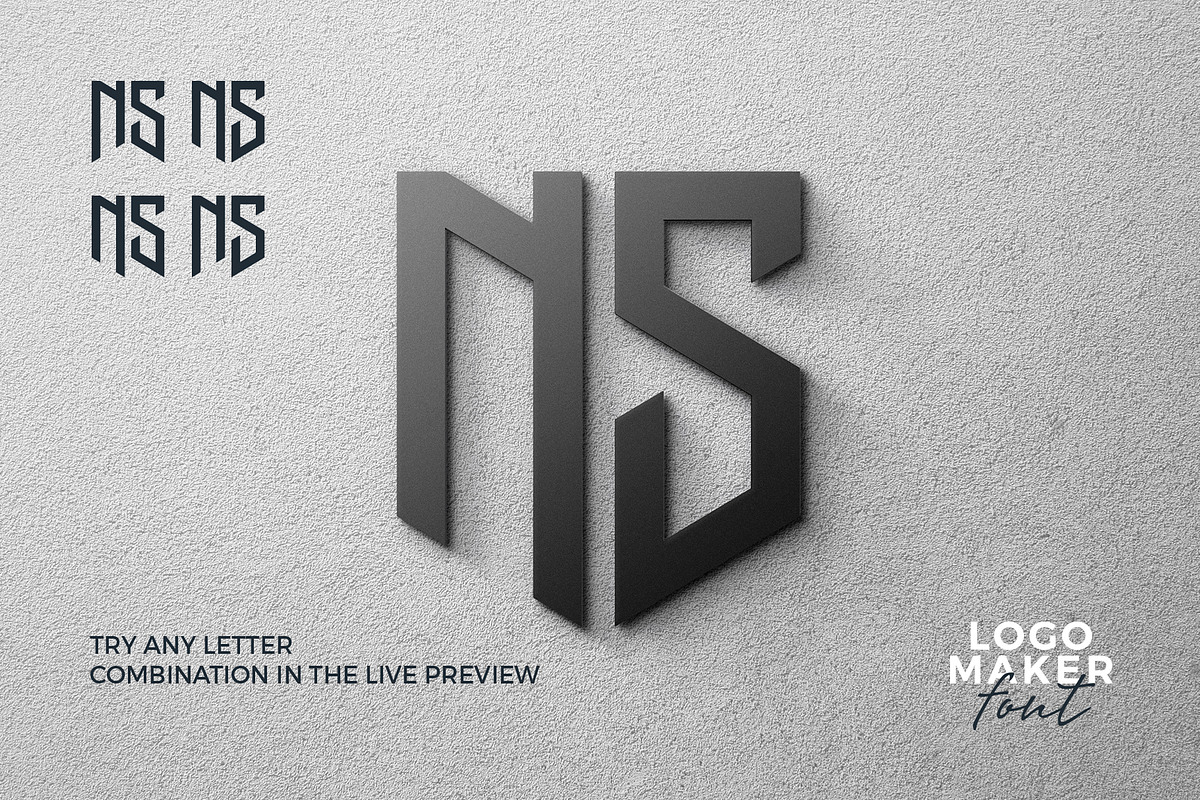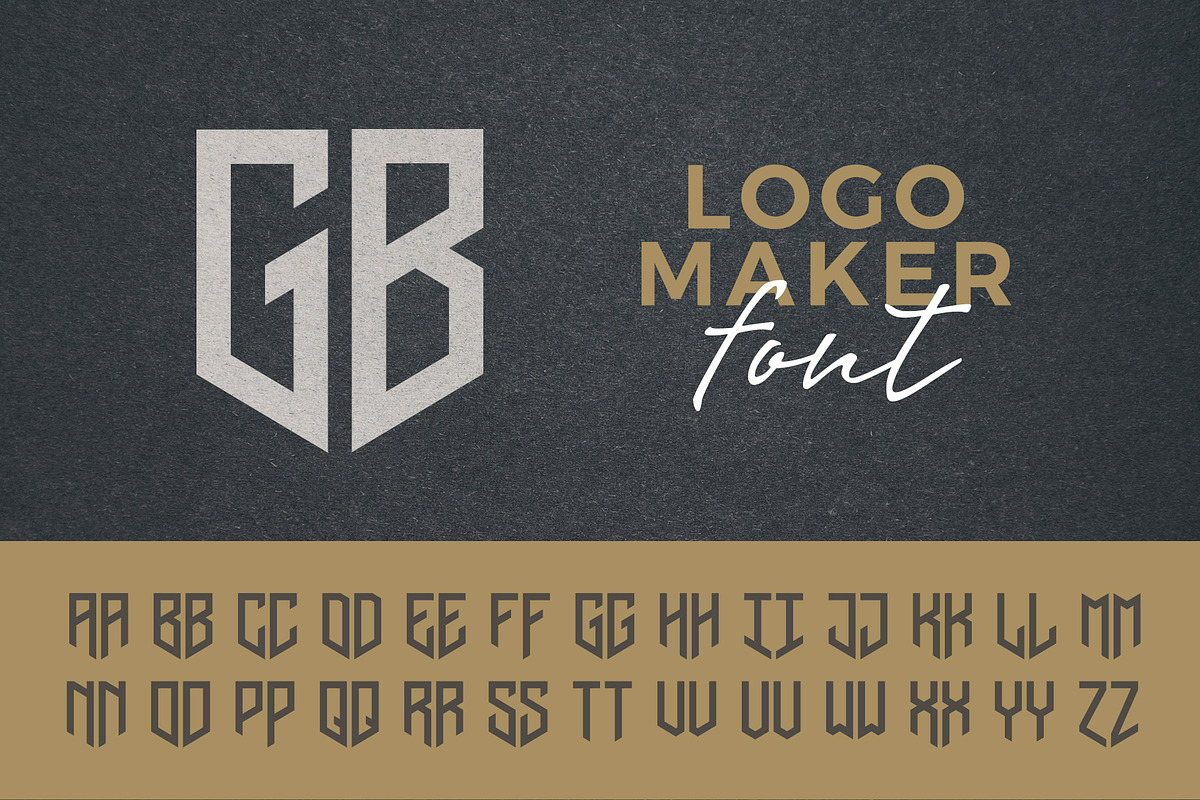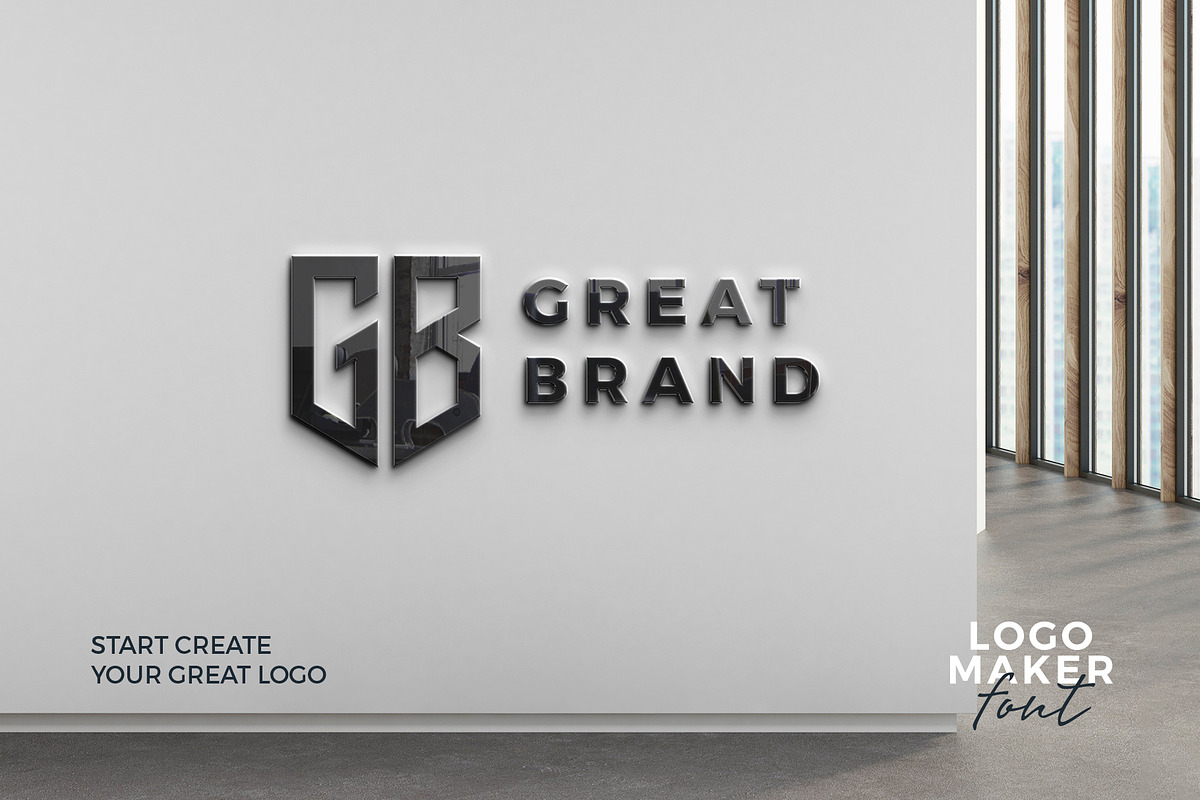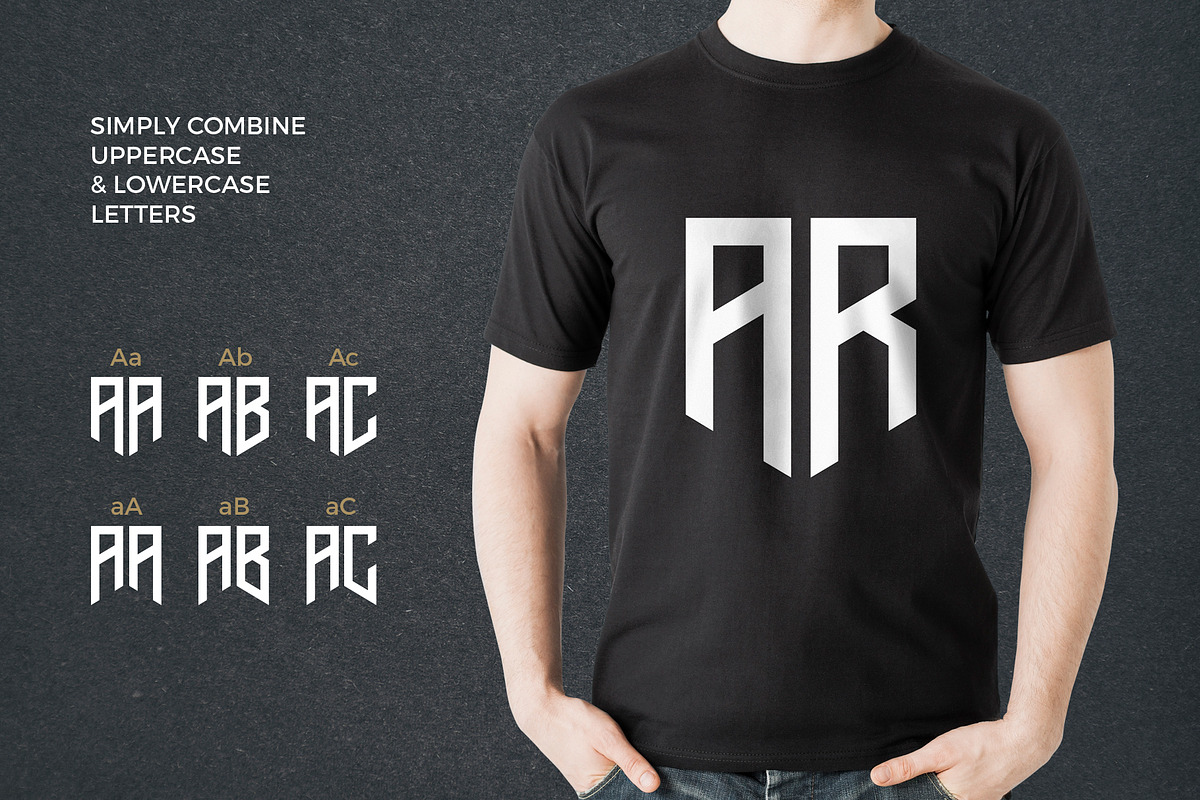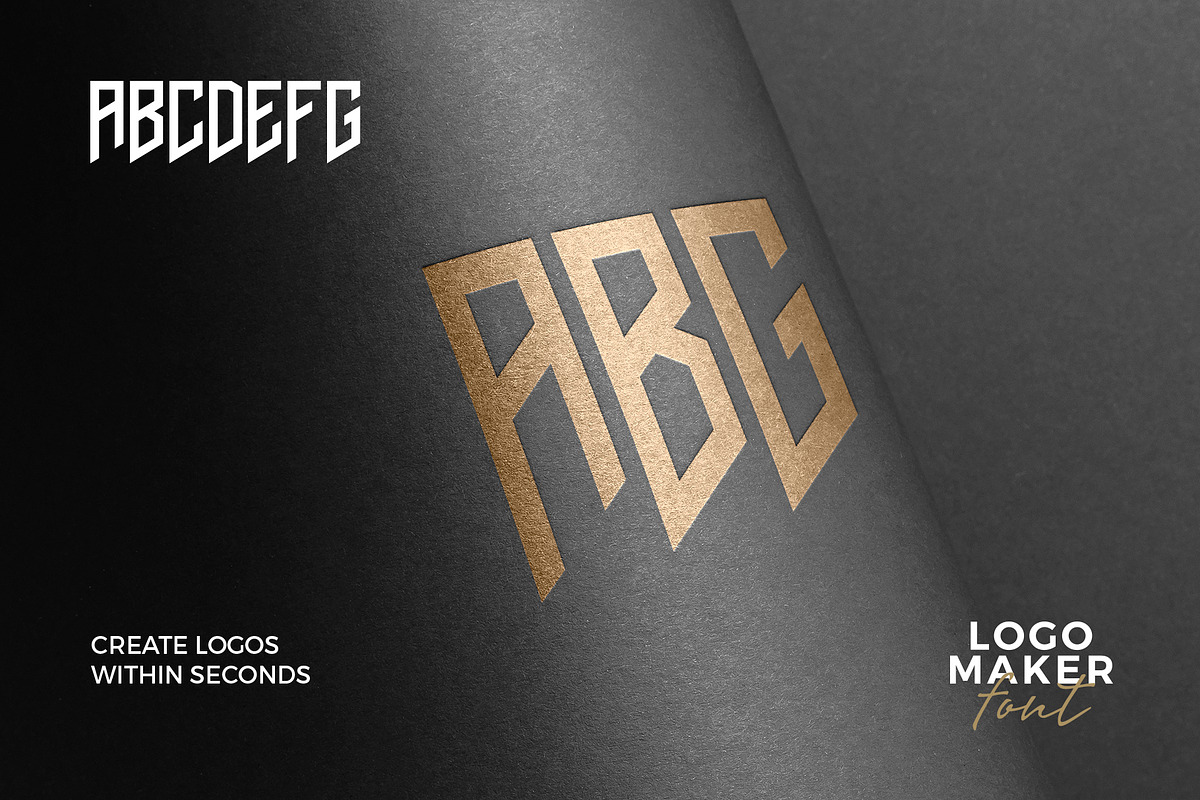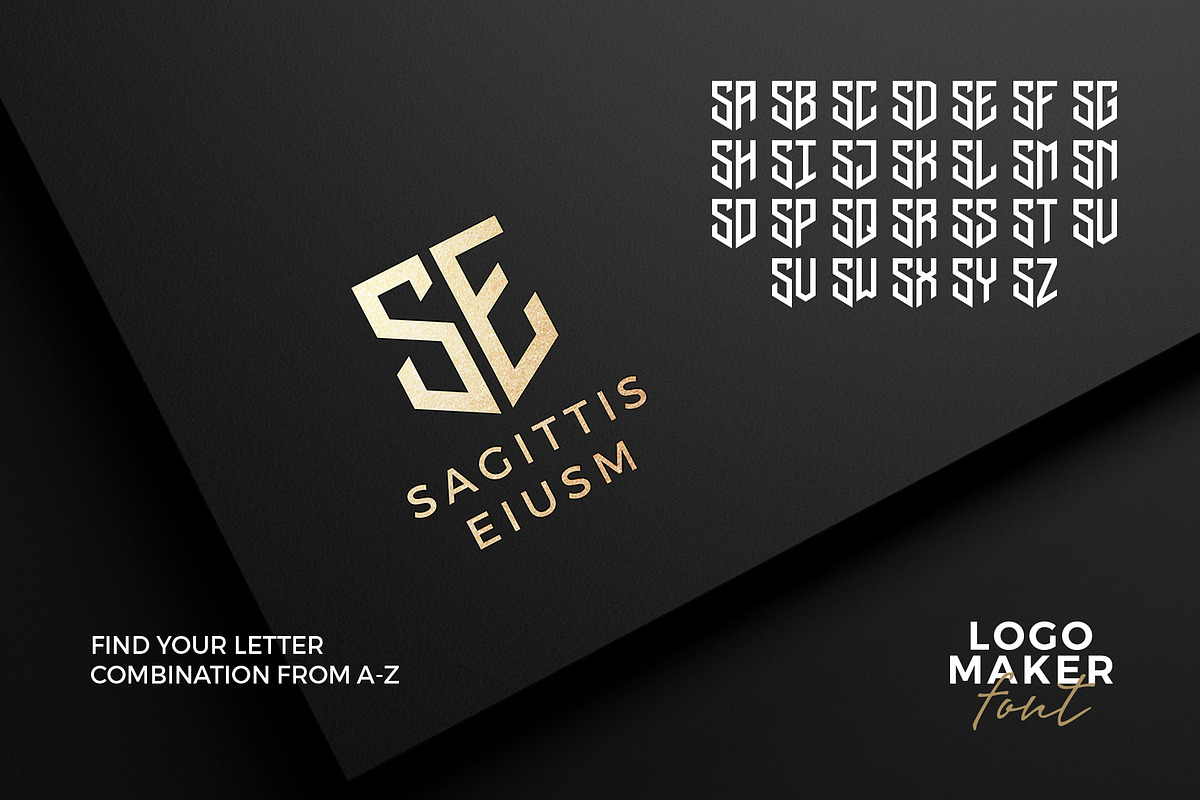
Logo maker font.
Introducing the LogoMaker Font. This typeface is your ultimate tool for crafting logos, monograms, initials, and more, offering a style that is strong, modern, precise, and powerful. With its clear geometric shapes, it's the perfect choice for a wide range of logos that leave a lasting impression.
Minimalist Excellence: The LogoMaker Font embraces minimalism, making it a prime choice for creating logos that exude sophistication and modernity. Its strong, clean lines and precise geometry give your designs a bold and confident edge.
Endless Creativity: It's not just a font; it's a complete logo creator kit. Ideal for businesses in sports, finance, retail, real estate, automotive, construction, legal, fashion and more.
Versatile Application: From corporate branding to sports logos and creative endeavors, this font adapts seamlessly to your project's needs. It's a versatile tool for crafting logos that leave a lasting impression.
Elegant Display: The LogoMaker Font is an elegant display typeface that shines in large text settings, making it perfect for headlines and posters.